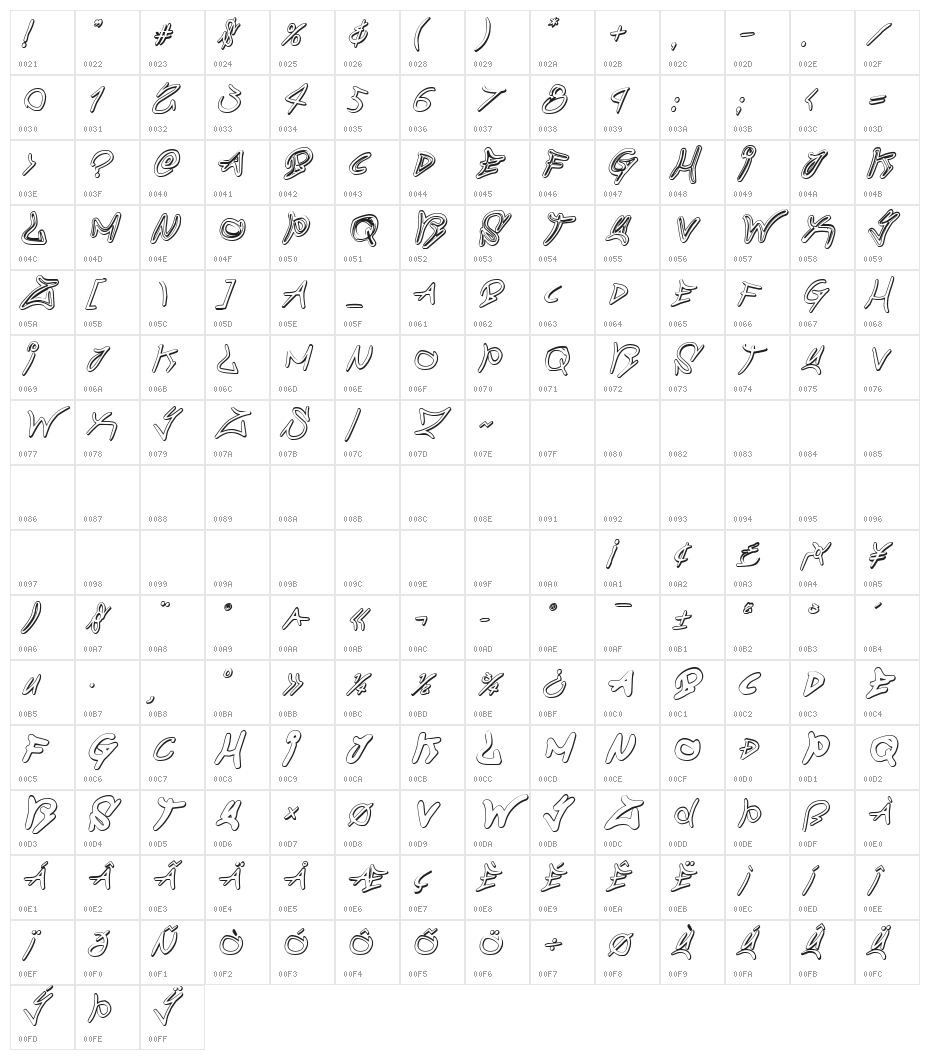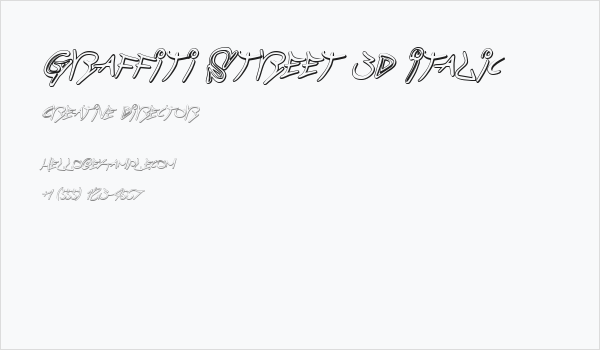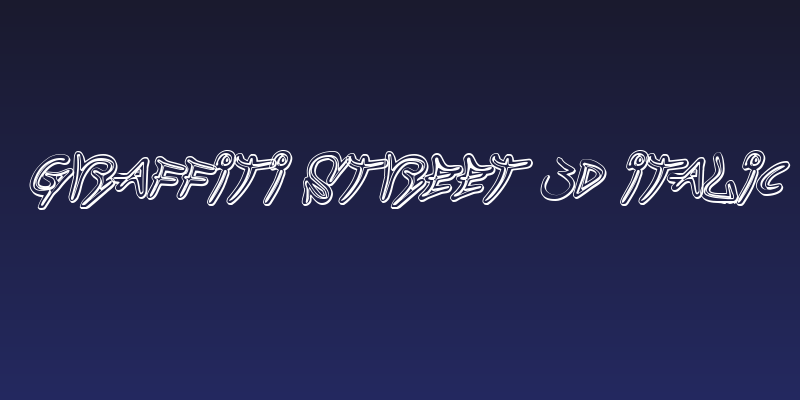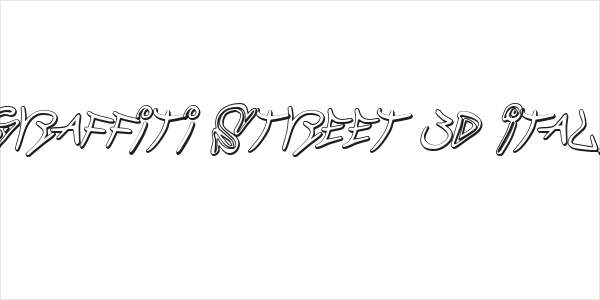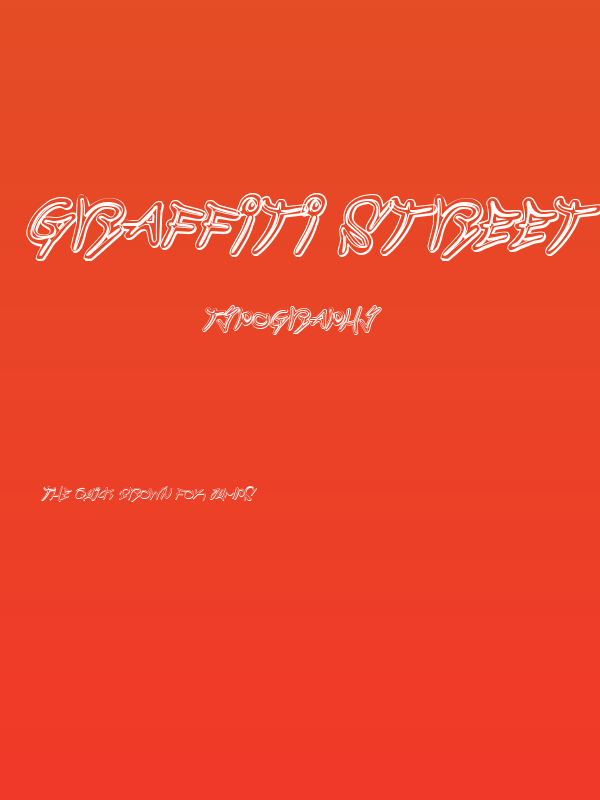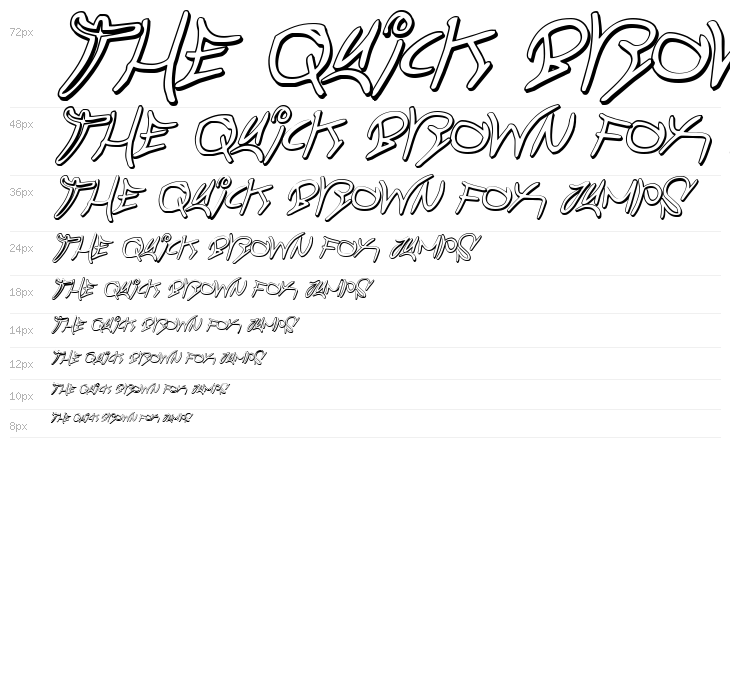
Graffiti Street 3D Italic Font
Graffiti Street 3D Italic Description
This font exudes a dynamic and edgy street art vibe, characterized by its bold, italicized 3D appearance. The letters are crafted with a graffiti-inspired style, featuring sharp angles and fluid curves that give a sense of motion and energy. The uppercase and lowercase letters maintain a consistent aesthetic, with exaggerated strokes and a playful, rebellious flair. The numbers and special characters follow suit, adding to the overall cohesive look. This font is perfect for projects that aim to capture an urban, youthful, and artistic essence.
| Overall Style | Modern, Urban, Artistic |
| Proposed Projects | Ideal for street art designs, urban-themed posters, music album covers, and edgy branding projects. |